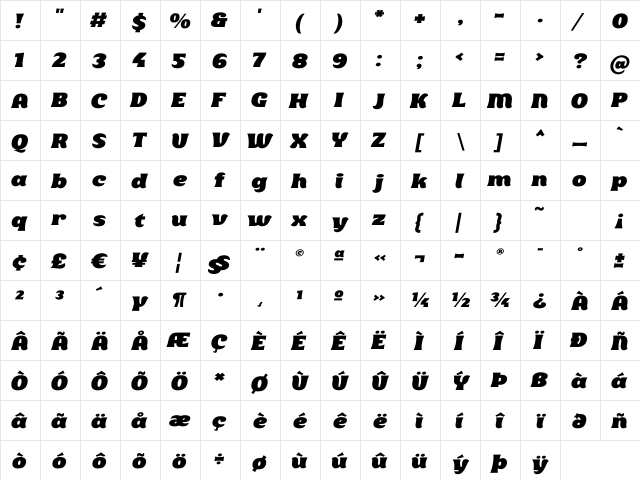
BolerWide Italic Regular
Design Context for BolerWide Italic Typeface
BolerWide Italic offers clean, dependable letterforms without strong stylistic allegiance, making it a practical choice for designers who need flexibility. The slanted form adds forward momentum and visual energy.
Pro Tip: Try BolerWide Italic for annotation and caption copy alongside an upright companion — the contrast in angle creates a dynamic but ordered typographic system.